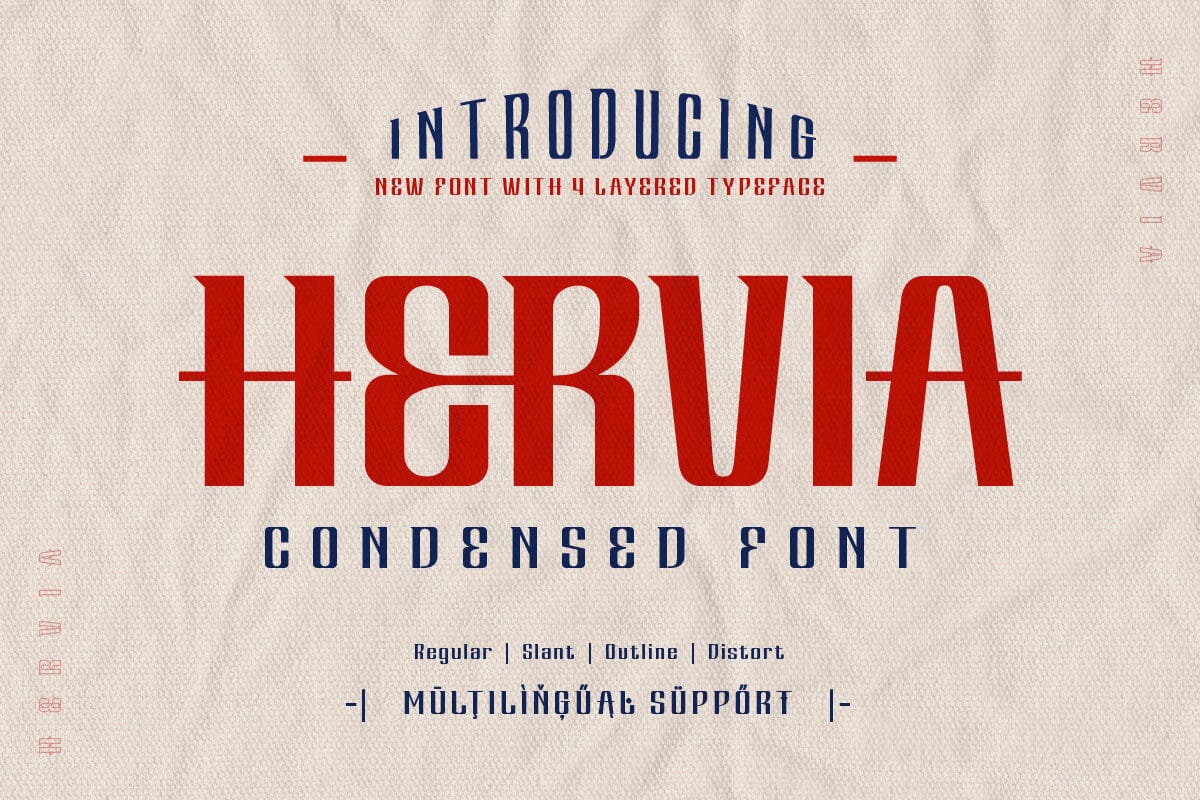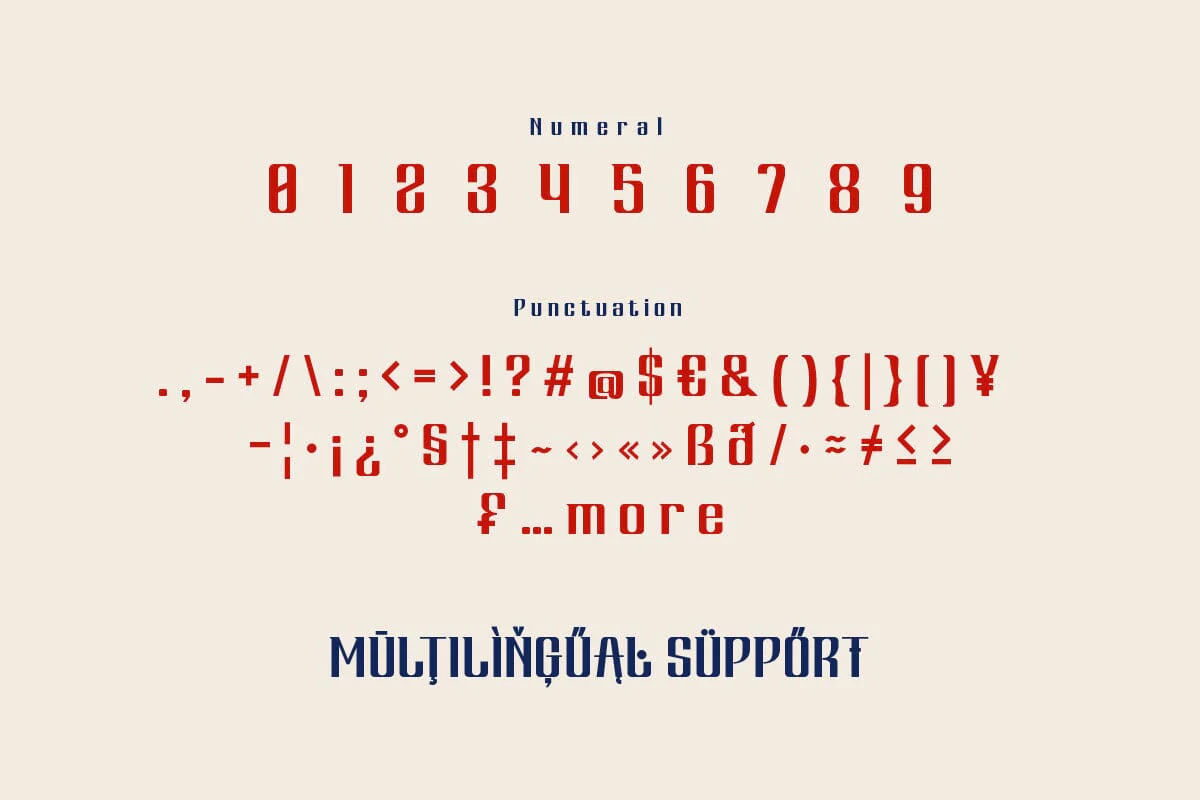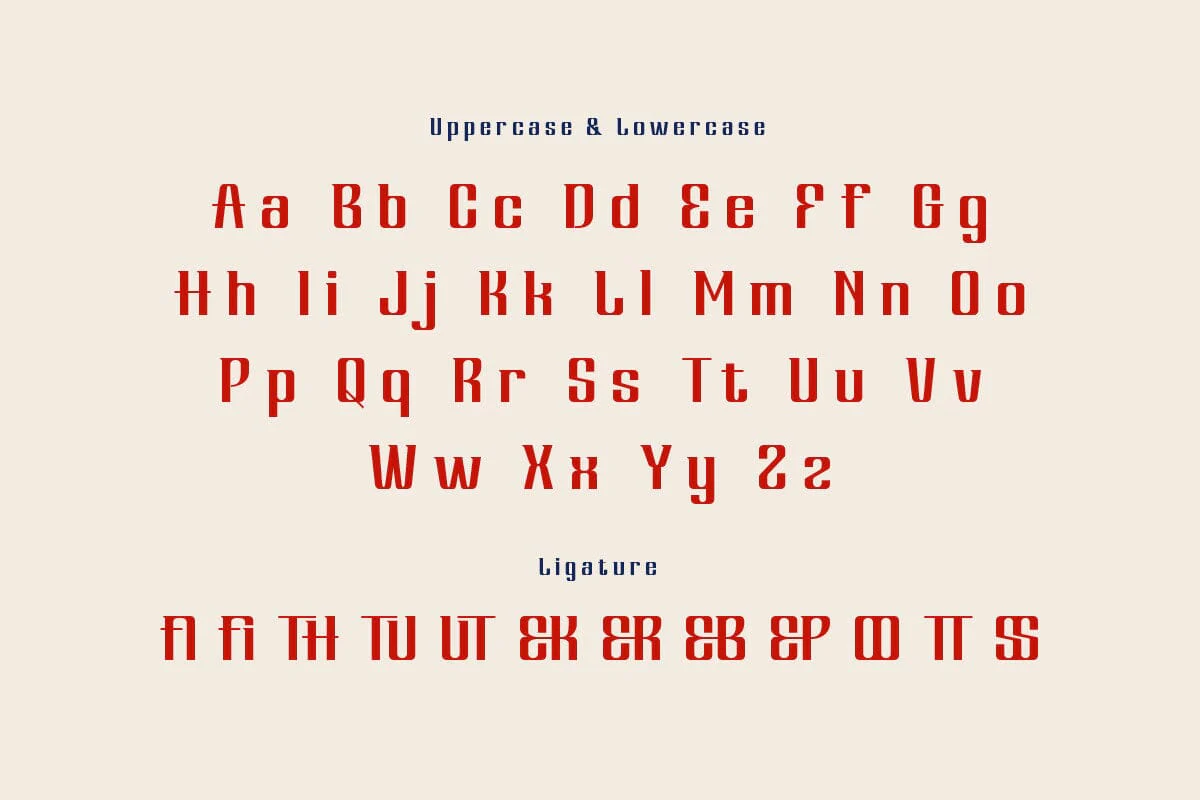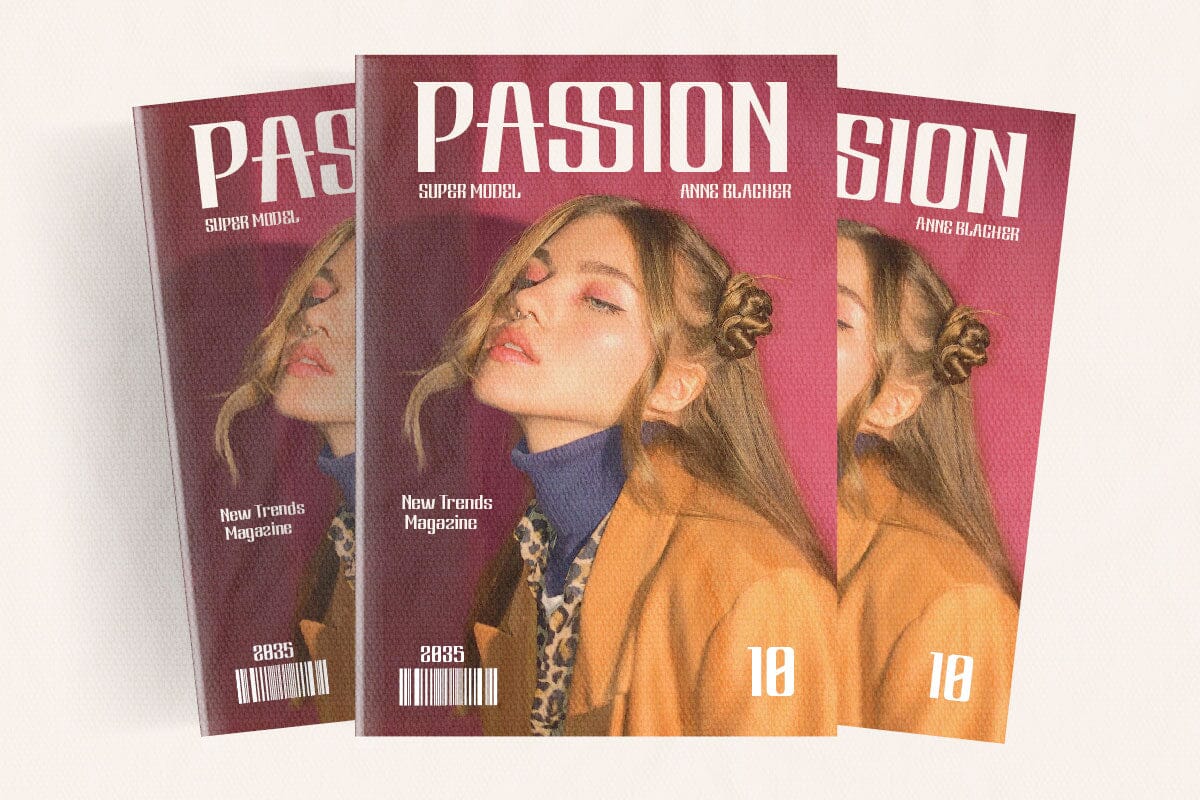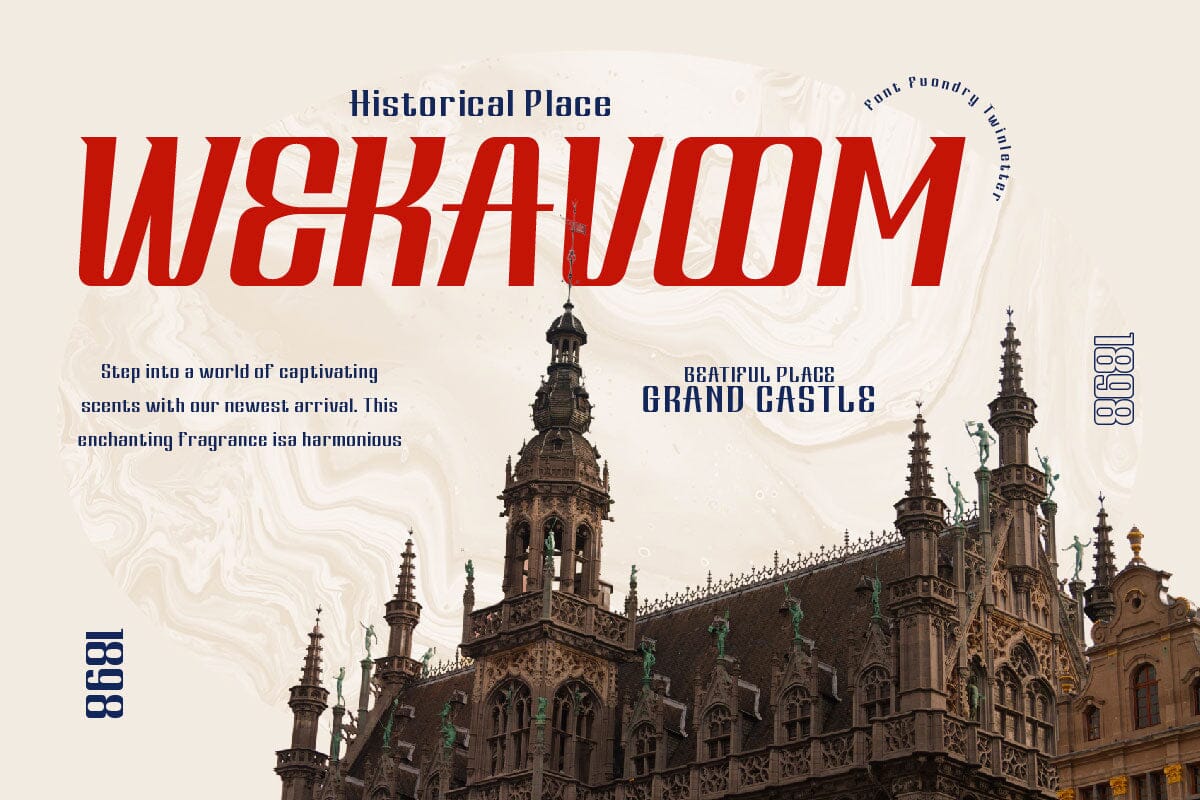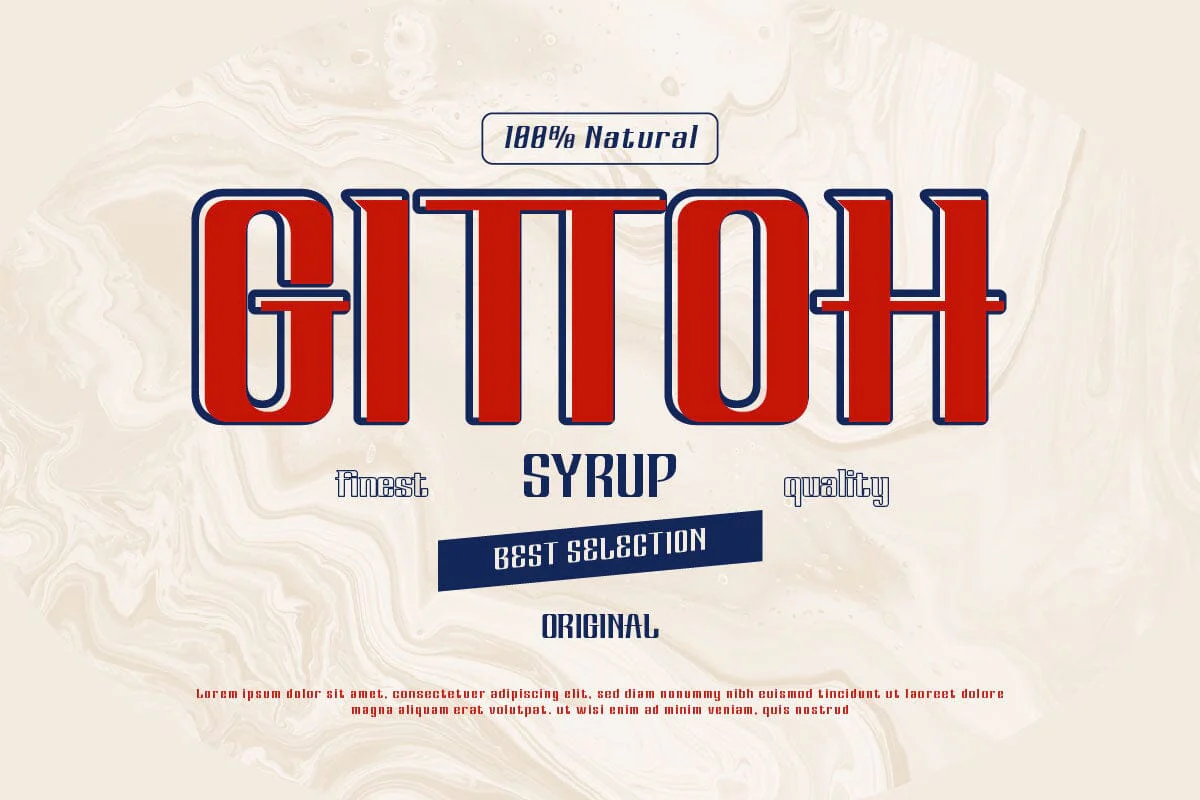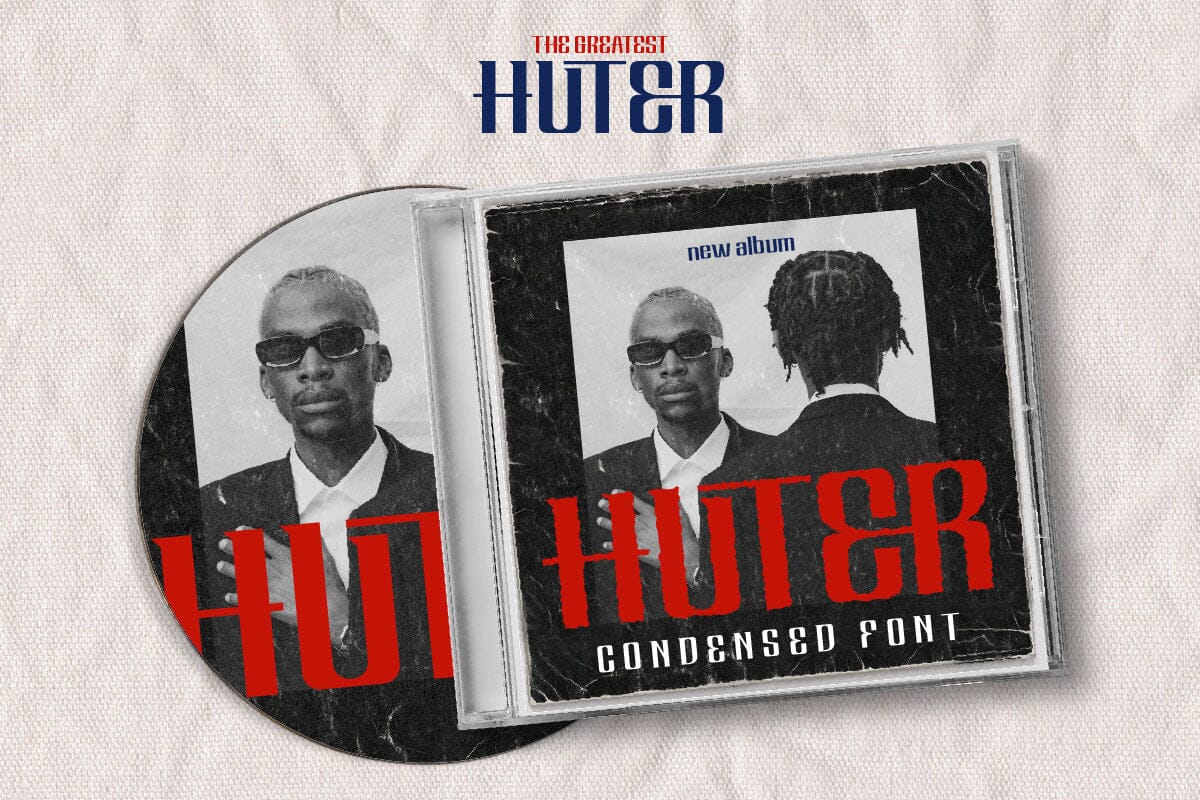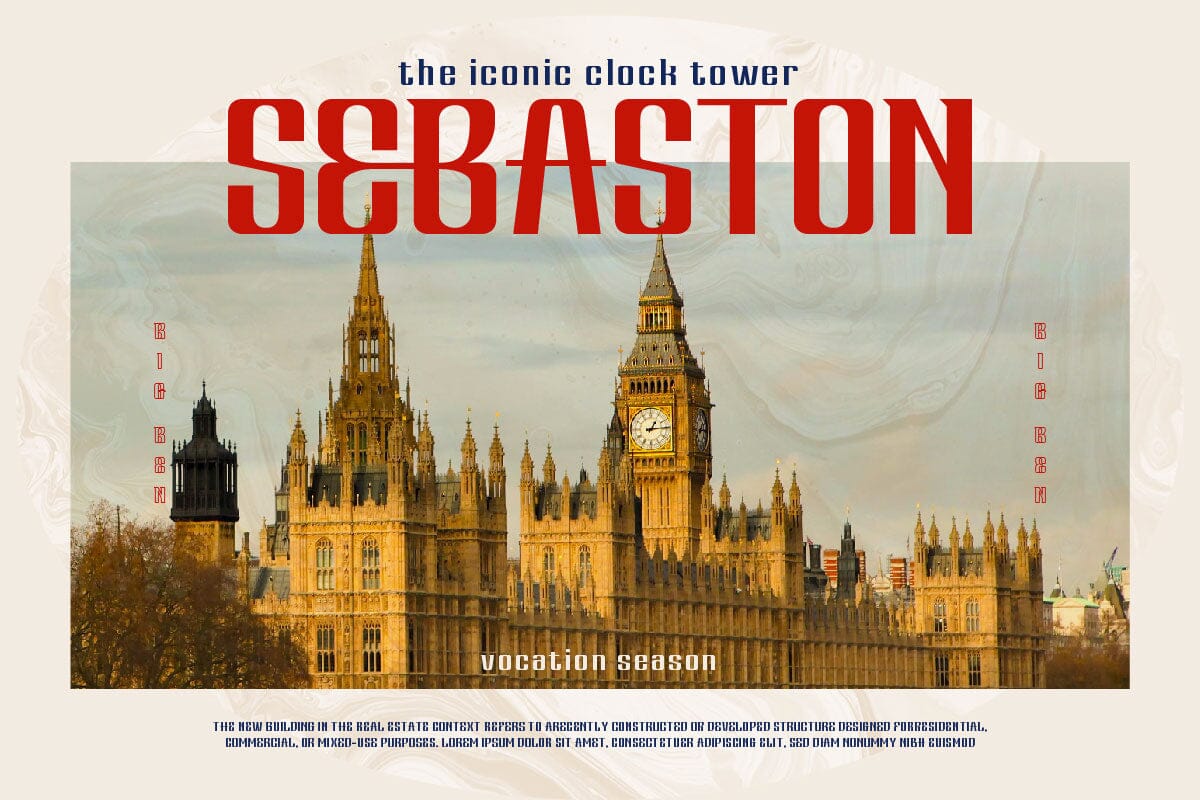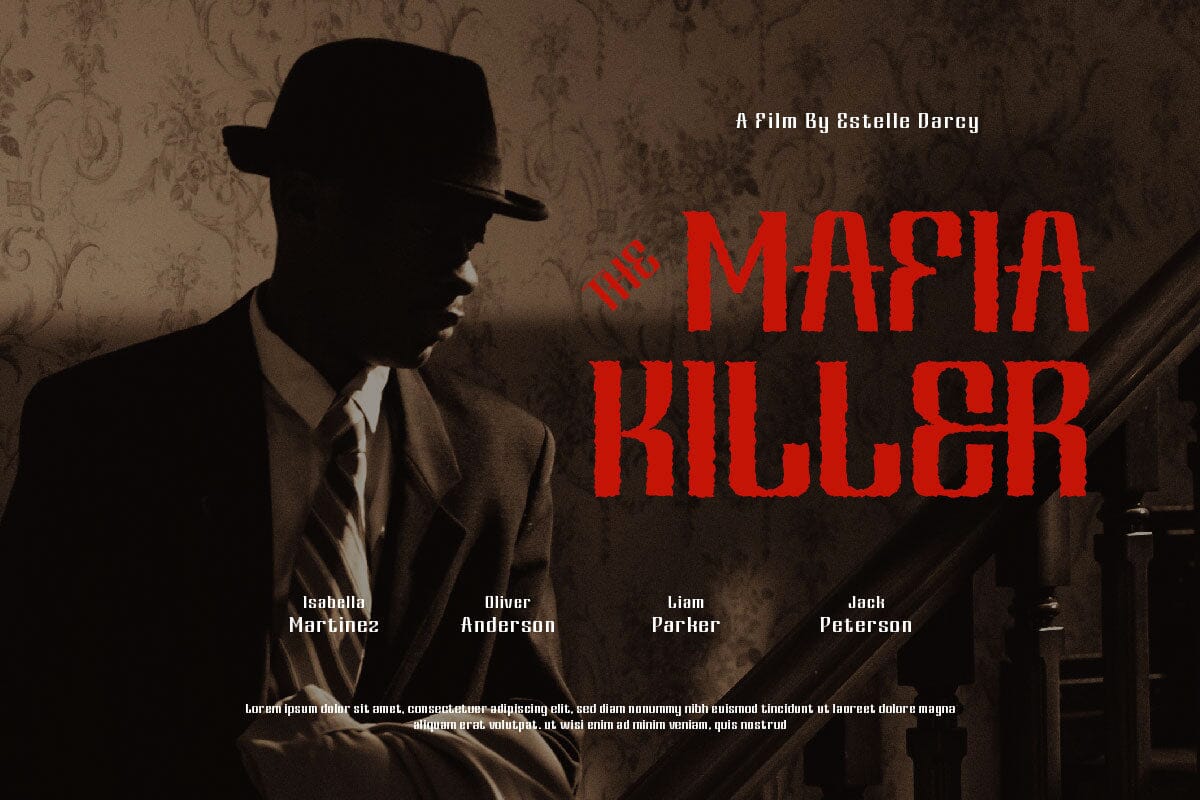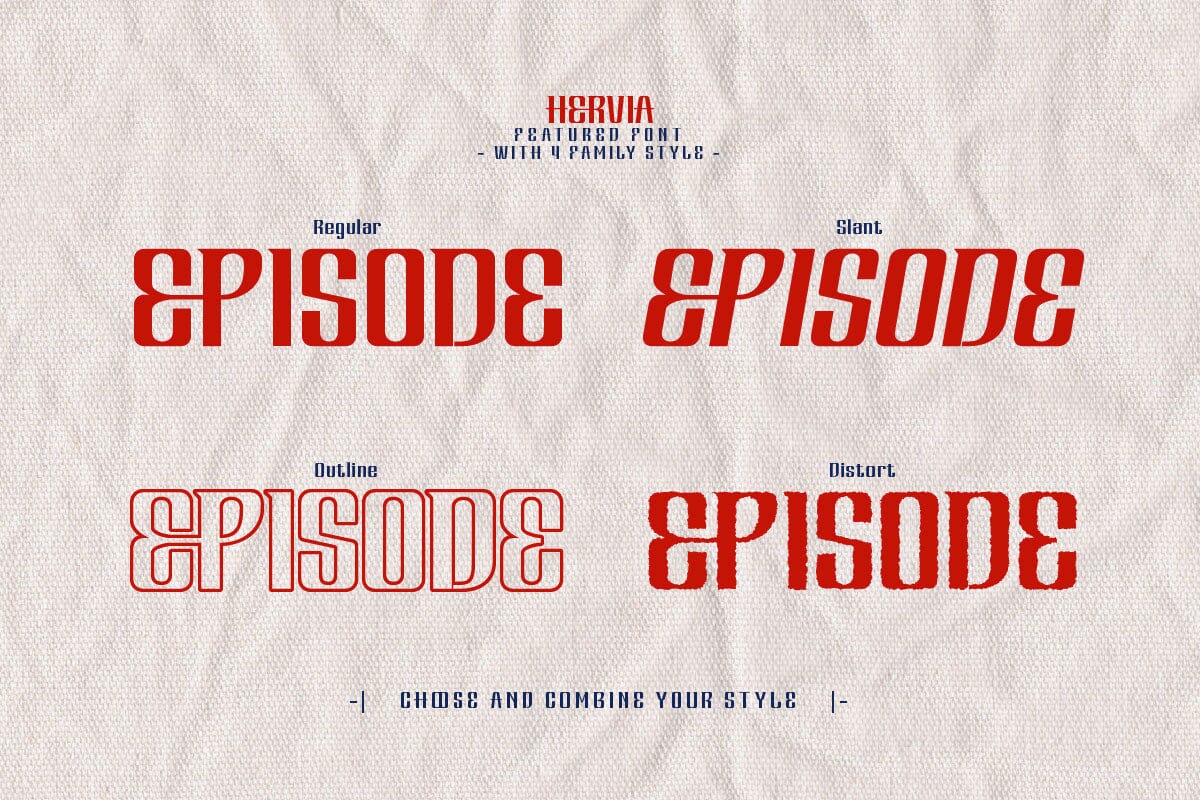
Hervia - Condensed Font
Hervia is a display typeface designed in a condensed and bold style, ideal for creating a modern and efficient look for design projects. This font gives a concise and strong impression, perfect for titles, headings, or other design elements that require a concise typographic style. Each letter in Hervia has a bold design with condensed proportions, maximizing the use of space and providing a modern, clean look. This font can provide an efficient and contemporary aesthetic to design projects that require short text placement but a big visual impact. Hervia is the right choice for design projects that require a concise and bold look. With its condensed design, this font allows for dense text placement while maintaining clarity and readability. Whatโs Included: - File font OTF, TTF, WOFF, WOFF2, CSS, HTML - All glyphs and variation - We highly recommend using a program that supports OpenType features and Glyphs panels like many Adobe apps and Corel Draw so that you can see and access all Glyph variations. - PUA Encoded Characters โ Fully accessible without additional design software. - Fonts include Multilingual support